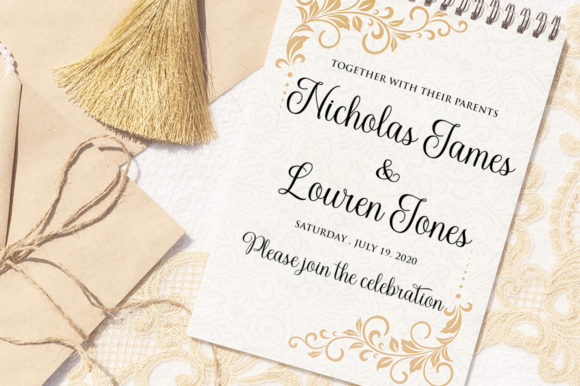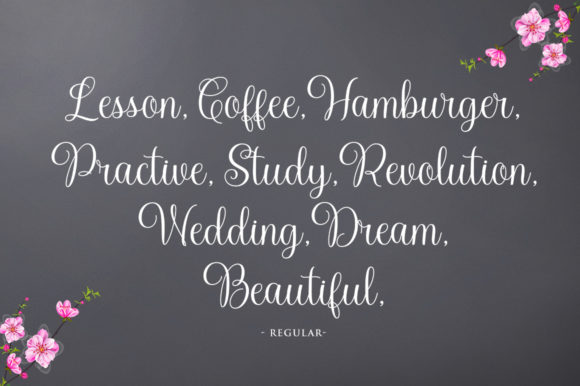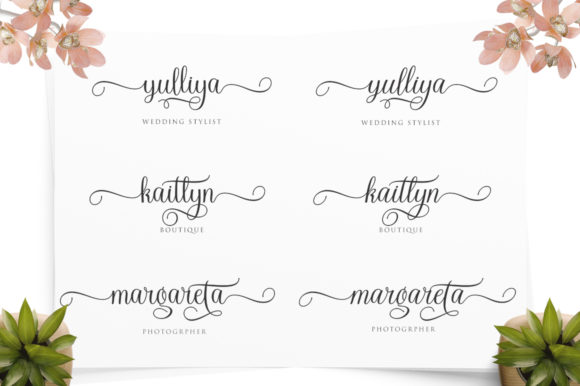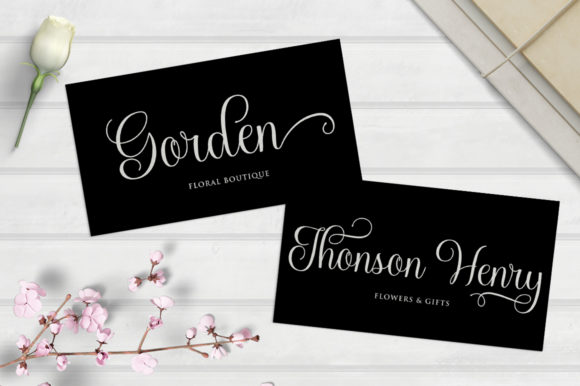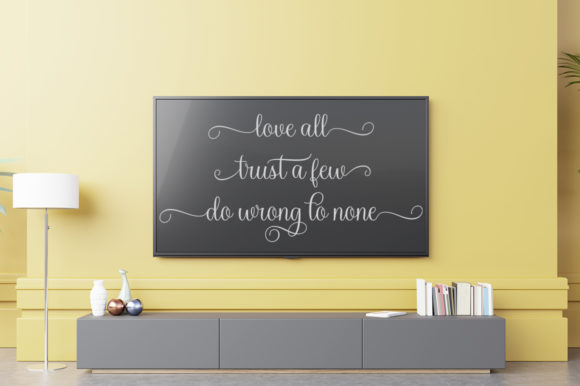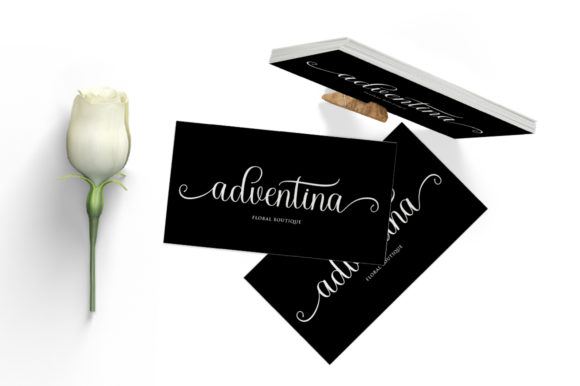
Arabelle Font: The Sweet and Romantic Calligraphy Typeface
Are you looking for a font that exudes elegance, romance, and playfulness? Look no further than the Arabelle Font! This beautiful calligraphy typeface is perfect for designers and crafters who want to add a touch of sophistication and whimsy to their projects. In this article, we’ll dive into the features and uses of the Arabelle Font, and explore why it’s a must-have for any creative.
What is Arabelle Font?
Arabelle is a sweet, romantic calligraphy typeface that is characterized by its dancing characters along the baseline. This unique feature gives the font a casual yet elegant touch that is perfect for a variety of design projects. The font has a flowing, cursive style that is reminiscent of handwritten calligraphy, making it ideal for projects that require a personal and intimate feel.
Features of Arabelle Font
The Arabelle Font has several features that make it a standout choice for designers and crafters. Some of its key features include:
- Sweet and Romantic Style: The Arabelle Font has a sweet and romantic style that is perfect for projects that require a touch of elegance and sophistication.
- Casual yet Elegant Touch: The font’s casual yet elegant touch makes it versatile and suitable for a wide range of design projects.
- Dancing Characters: The font’s dancing characters along the baseline give it a playful and whimsical feel that is sure to capture the attention of your audience.
- High-Quality Design: The Arabelle Font is designed with high-quality craftsmanship, ensuring that it looks great in any size or format.
Uses of Arabelle Font
The Arabelle Font is a versatile typeface that can be used for a variety of design projects, including:
- Logos: The Arabelle Font is perfect for creating logos that require a touch of elegance and sophistication.
- Wedding Invitations: The font’s romantic style makes it ideal for wedding invitations, save-the-date cards, and other wedding-related design projects.
- Headers: The Arabelle Font can be used to create beautiful headers for websites, blogs, and social media platforms.
- T-Shirts: The font’s playful and whimsical feel makes it perfect for designing t-shirts, hoodies, and other apparel.
- Letterheads: The Arabelle Font can be used to create elegant letterheads for businesses and individuals.
- Signboards: The font’s bold and playful style makes it suitable for signboards, posters, and other display materials.
- Labels: The Arabelle Font can be used to create beautiful labels for products, gifts, and other items.
- News: The font’s elegant style makes it suitable for newspaper and magazine headlines.
- Posters: The Arabelle Font can be used to create eye-catching posters for events, promotions, and other purposes.
- Badges: The font’s playful and whimsical feel makes it perfect for designing badges, stickers, and other promotional materials.
Why Choose Arabelle Font?
There are many reasons why you should choose the Arabelle Font for your design projects. Here are a few:
- Unique Style: The Arabelle Font has a unique style that sets it apart from other calligraphy typefaces.
- Versatility: The font’s versatility makes it suitable for a wide range of design projects.
- Elegance: The Arabelle Font exudes elegance and sophistication, making it perfect for projects that require a touch of refinement.
- Playfulness: The font’s playful and whimsical feel makes it perfect for projects that require a touch of fun and personality.
In conclusion, the Arabelle Font is a beautiful and versatile calligraphy typeface that is perfect for designers and crafters who want to add a touch of elegance and whimsy to their projects. With its unique style, versatility, elegance, and playfulness, the Arabelle Font is a must-have for any creative. Whether you’re designing logos, wedding invitations, headers, or any other type of project, the Arabelle Font is sure to impress.